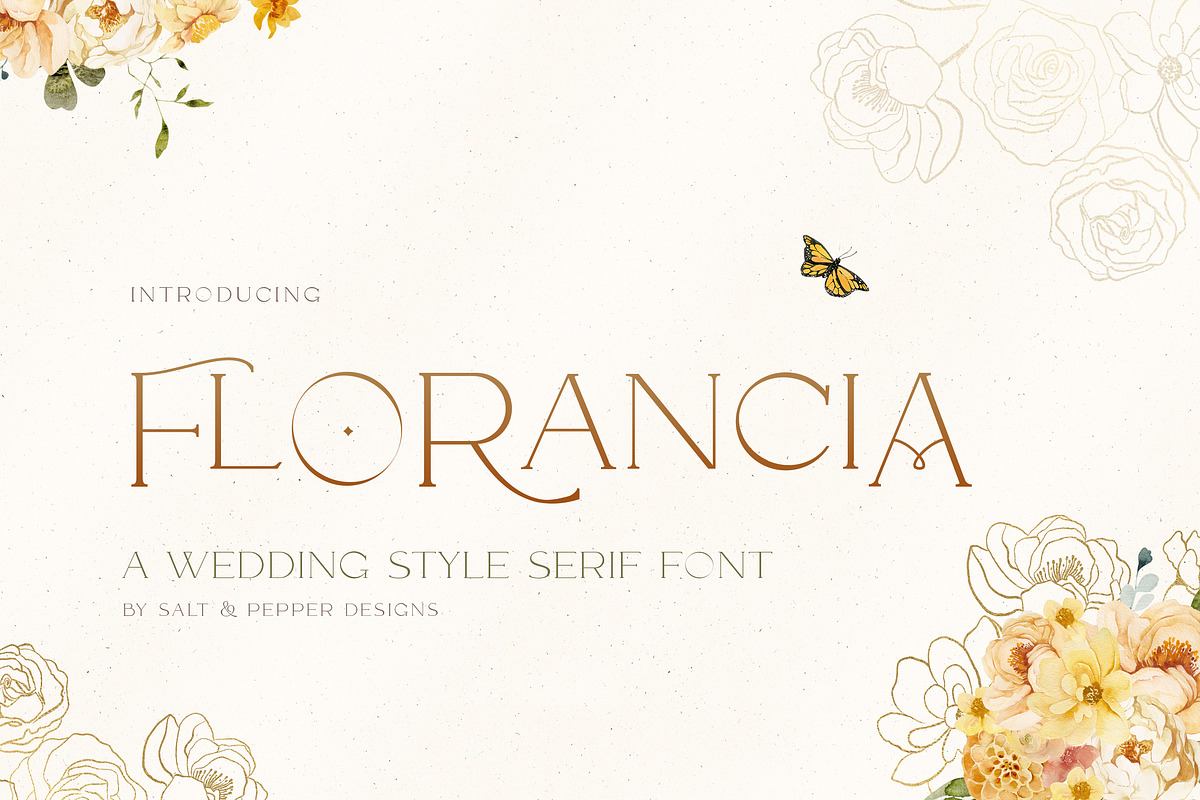
Introduce timeless elegance to your designs with the Florancia Serif Font Free Download — a graceful and refined serif typeface inspired by classic editorial styles and romantic aesthetics. With its soft curves, sharp contrasts, and polished structure, Florancia is ideal for wedding invitations, book covers, fashion branding, and upscale packaging.
This typeface radiates sophistication while maintaining a gentle charm that feels both vintage and modern. Whether you're creating for a high-end brand, a floral boutique, or a lifestyle magazine, Florancia brings a poetic visual rhythm that enhances any layout.